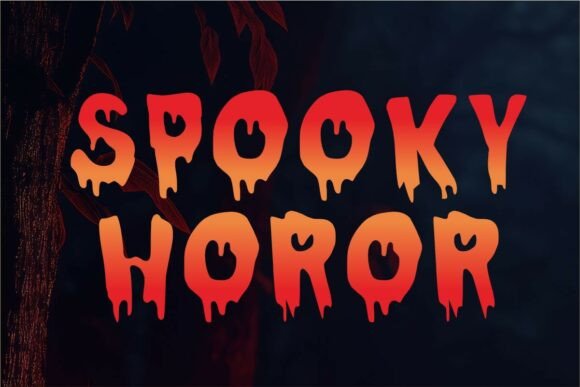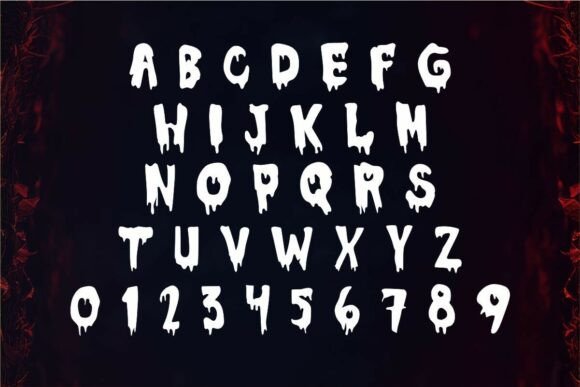
Unleash the Terror with Halloween Zombies Font
Are you ready to add a spooky touch to your designs this Halloween season? Look no further than the Halloween Zombies Font, a fun and eerie display font that’s perfect for creating a variety of projects. From blog posts and logos to invitations and decorations, this font is sure to bring a howling good time to your designs.
What is Halloween Zombies Font?
Halloween Zombies Font is a unique and creative display font that’s specifically designed to capture the spirit of Halloween. With its bold and playful style, this font is perfect for creating eye-catching designs that are sure to stand out. Whether you’re a designer, crafter, or simply someone who loves Halloween, this font is a must-have for your toolkit.
What Can I Use Halloween Zombies Font For?
The possibilities are endless with Halloween Zombies Font. Here are just a few ideas to get you started:
- Blog Posts: Add a spooky touch to your Halloween-themed blog posts with headings, titles, and captions in Halloween Zombies Font.
- Logos and Branding: Create a memorable and eye-catching logo for your Halloween-themed business or product.
- Advertisements: Make your Halloween ads stand out with bold and attention-grabbing headlines in Halloween Zombies Font.
- Invitations: Create spooky and fun invitations for Halloween parties, trick-or-treat events, or other Halloween-themed gatherings.
- Greeting Cards: Design creepy and fun greeting cards for Halloween or other horror-themed occasions.
- Planners and Photo Albums: Add a touch of Halloween spirit to your planners, photo albums, or scrapbooking projects.
- Decorations: Use Halloween Zombies Font to create spooky signs, banners, or other decorations for your Halloween party or haunted house.
Why Choose Halloween Zombies Font?
There are many reasons why Halloween Zombies Font is the perfect choice for your Halloween designs. Here are just a few:
- Unique and Creative: Halloween Zombies Font is a one-of-a-kind font that’s sure to make your designs stand out.
- High-Quality: Halloween Zombies Font is a high-quality font that’s designed to produce crisp and clear text, even at large sizes.
- Versatile: This font can be used for a wide range of projects, from digital designs to print projects.
Tips for Using Halloween Zombies Font
Here are a few tips to help you get the most out of Halloween Zombies Font:
- Experiment with Sizes: Try using Halloween Zombies Font in different sizes to create visual interest and emphasis.
- Combine with Other Fonts: Pair Halloween Zombies Font with other fonts to create a unique and interesting look.
- Use for Headlines: Use Halloween Zombies Font for headlines and titles to create a bold and eye-catching effect.
- Add Effects: Consider adding effects like shadows, outlines, or textures to give your text a spooky and eerie feel.
Halloween Zombies Font is a fun and spooky display font that’s perfect for adding a touch of Halloween spirit to your designs. With its bold and playful style, this font is sure to bring a howling good time to your projects. Whether you’re a designer, crafter, or simply someone who loves Halloween, this font is a must-have for your toolkit. So why wait? Download Halloween Zombies Font today and start creating some spooky and fun designs!